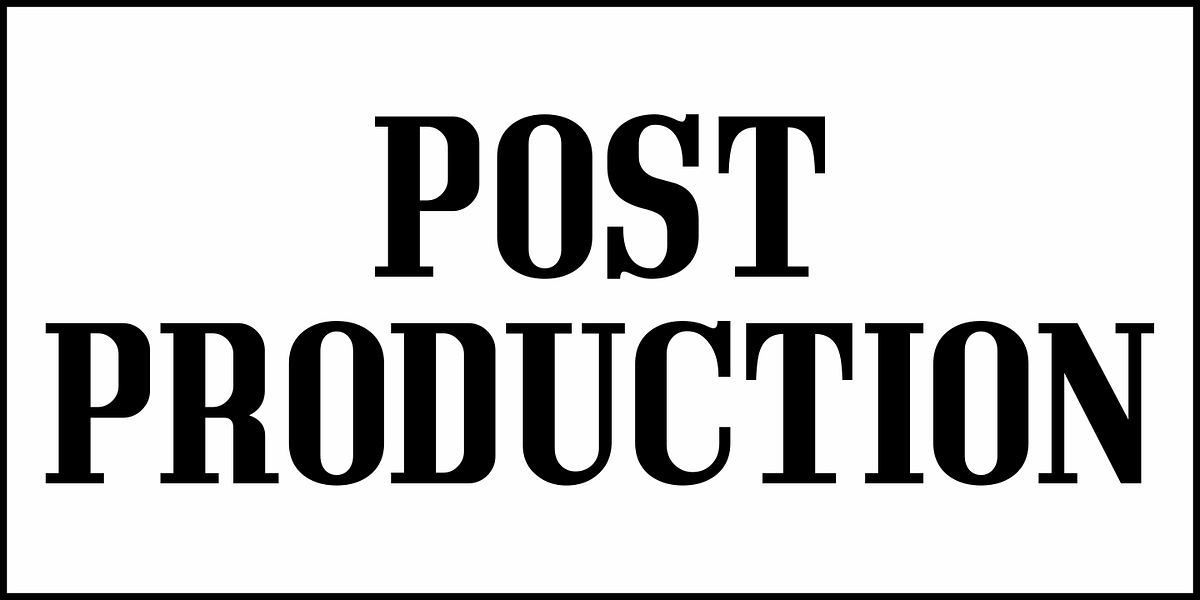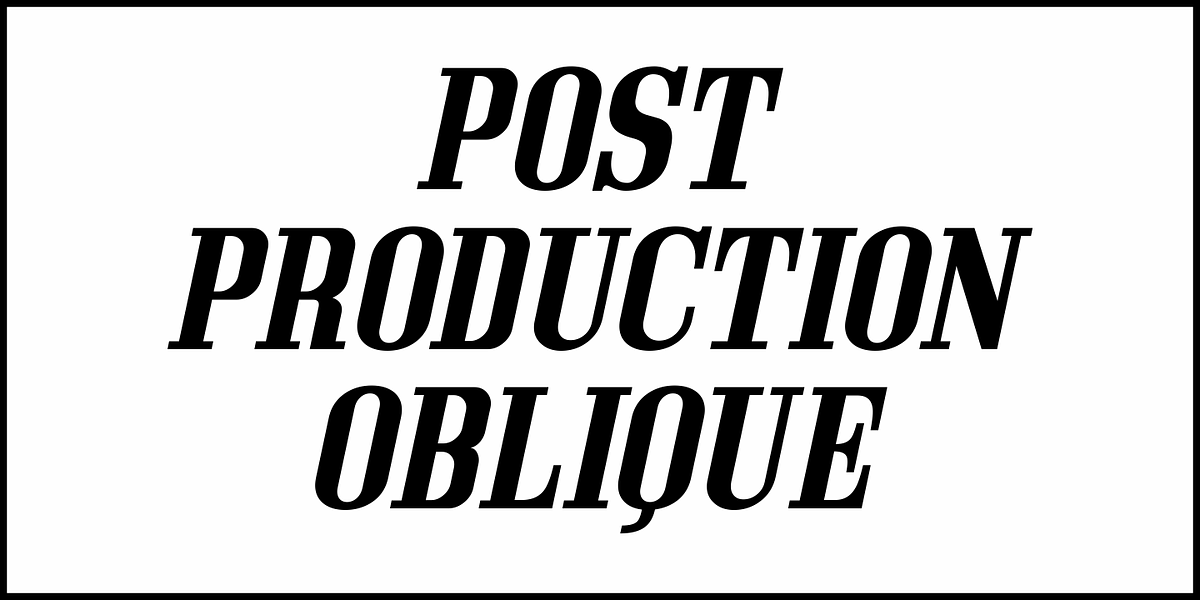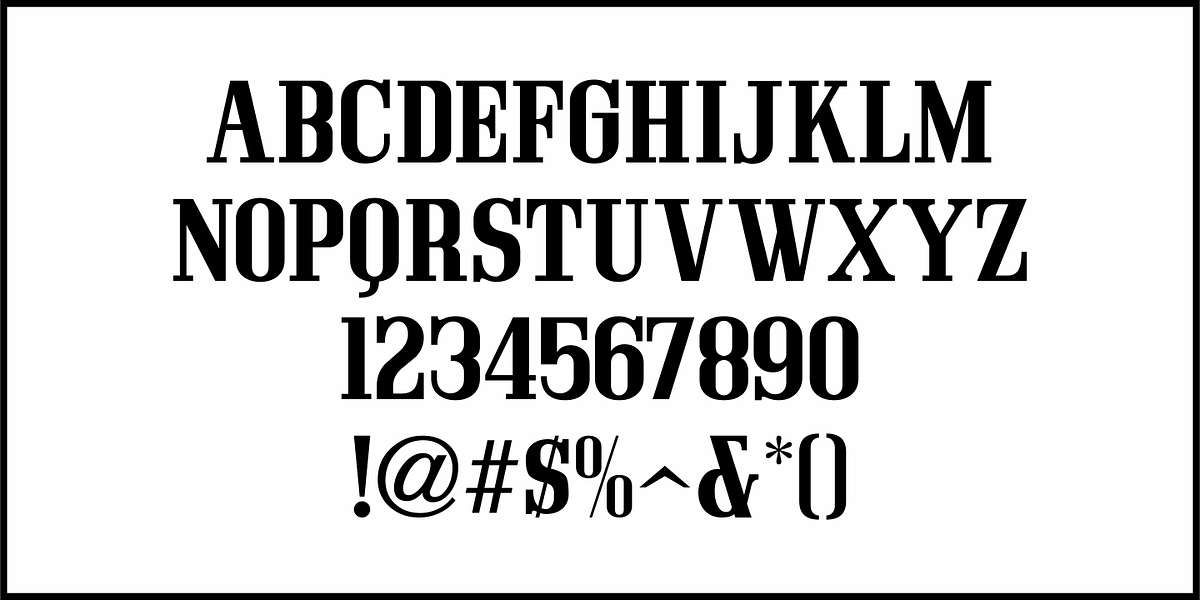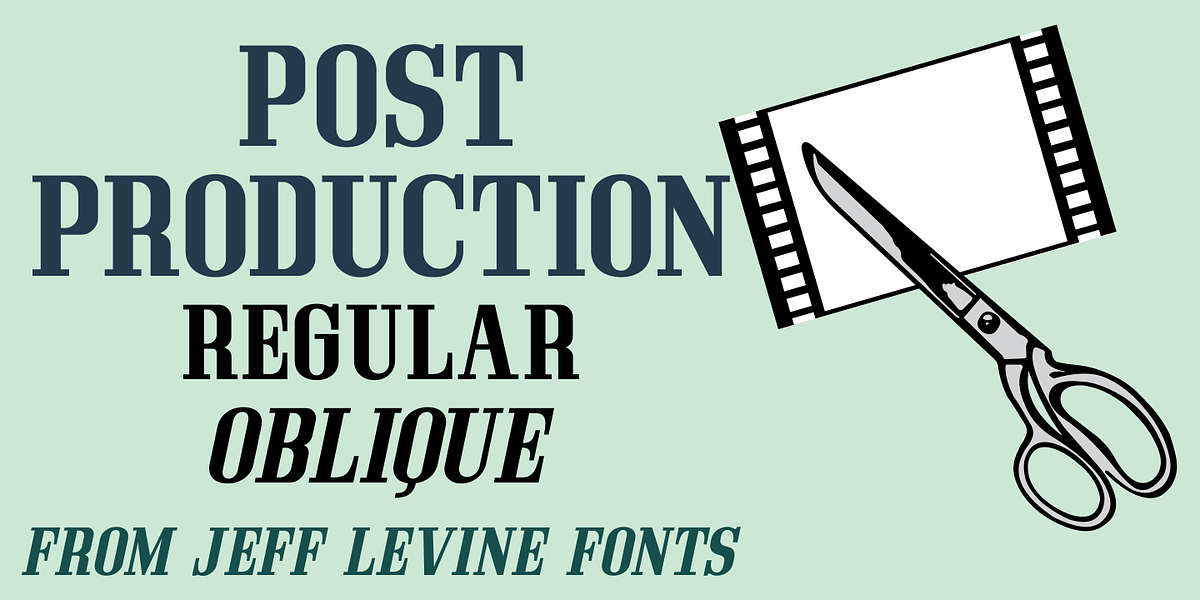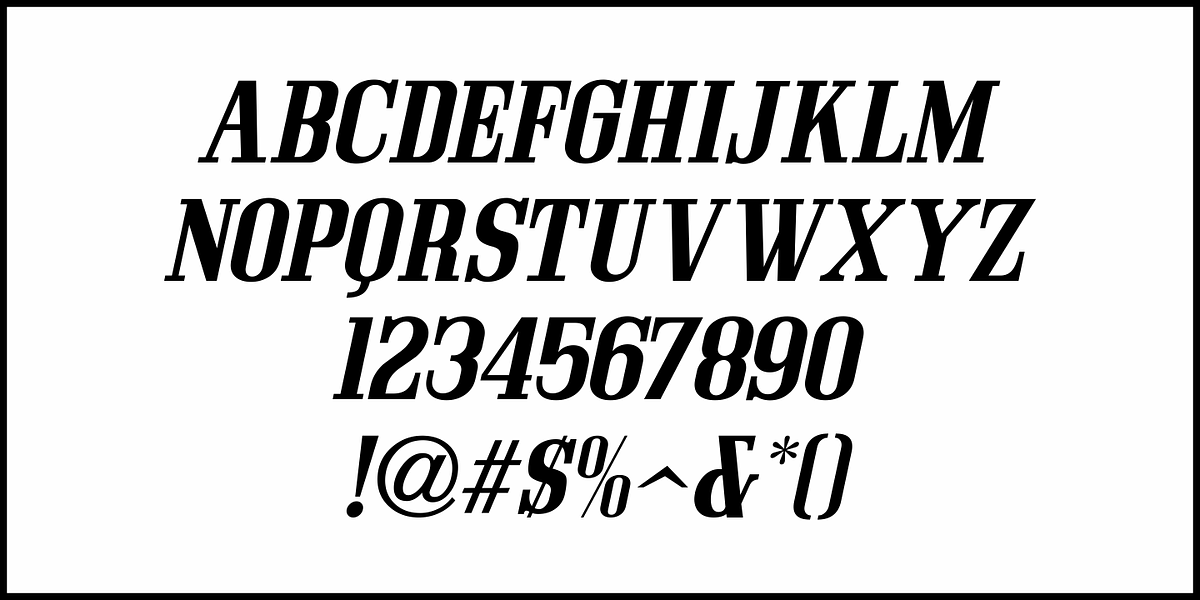
Post Production JNL
A title card listing the supporting cast of the 1950 Humphrey Bogart and Gloria Grahame drama “In a Lonely Place” provided the hand lettered slab serif type design that served as the model for Post Production JNL – available in both regular and oblique versions.